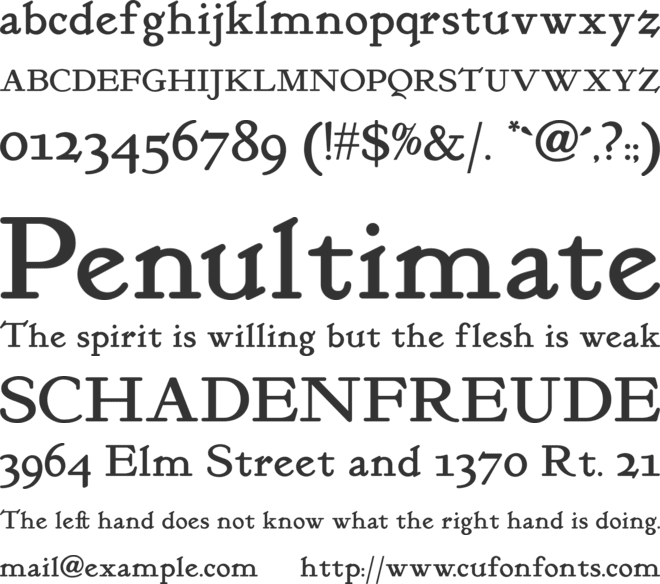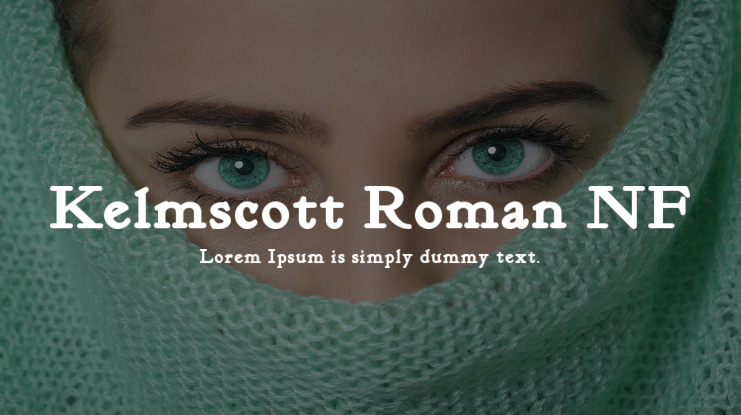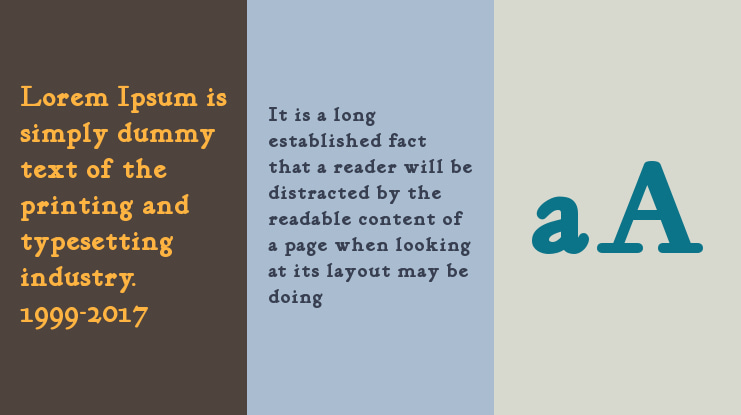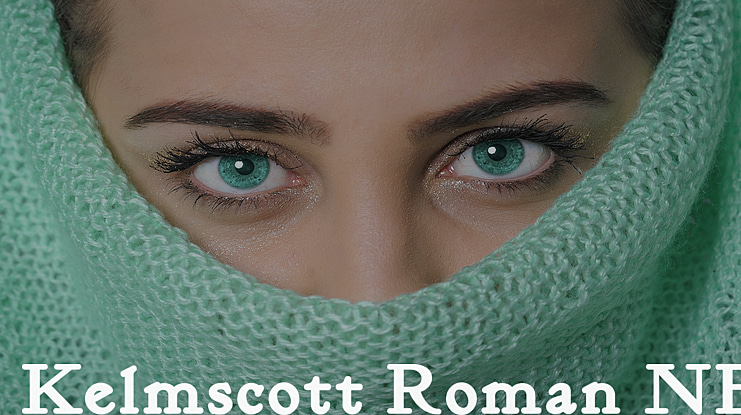
Kelmscott Roman NF Font Family
Nick Curtis
The third offering in the “Storybook Fonts” series, based on William Morris’ Golden type designs for his Kelmscott Press (hence the name). Classic, formal, yet warm and fuzzy.